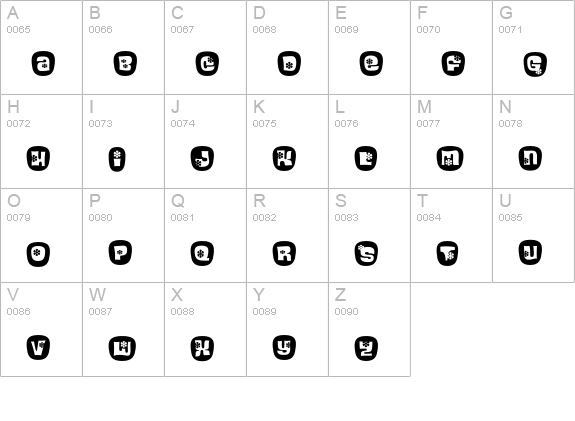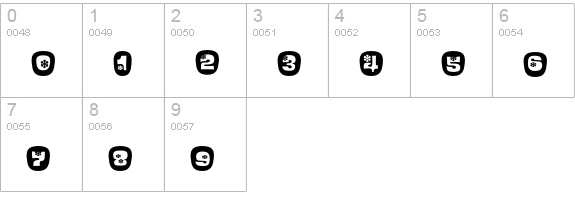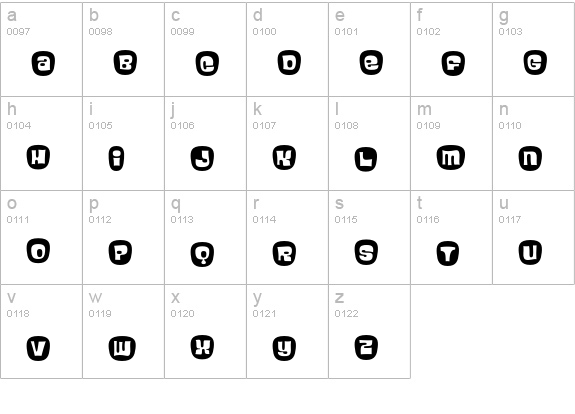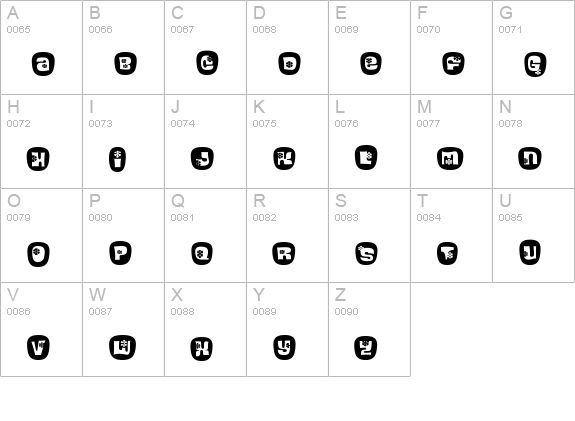
Blackcurrant-Cameo Font Details
Blackcurrant-Cameo font is a stunning and elegant typeface that exudes sophistication and charm. With its unique blend of modern and classic elements, this font is perfect for adding a touch of refinement to any design project. The graceful curves and intricate details of Blackcurrant-Cameo font make it a versatile choice for a wide range of applications, from logos and branding to invitations and packaging. The best part? Blackcurrant-Cameo font is completely free to download at FontsMarket.com. Whether you're a seasoned designer looking to expand your font collection or a beginner searching for the perfect typeface, Blackcurrant-Cameo font is sure to impress with its timeless beauty and effortless elegance. Don't miss out on this exquisite font – download it today and elevate your designs to the next level.